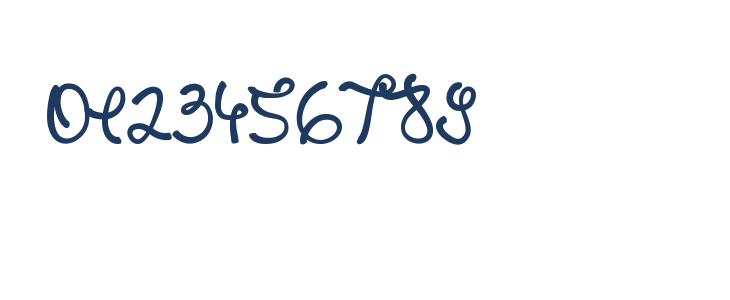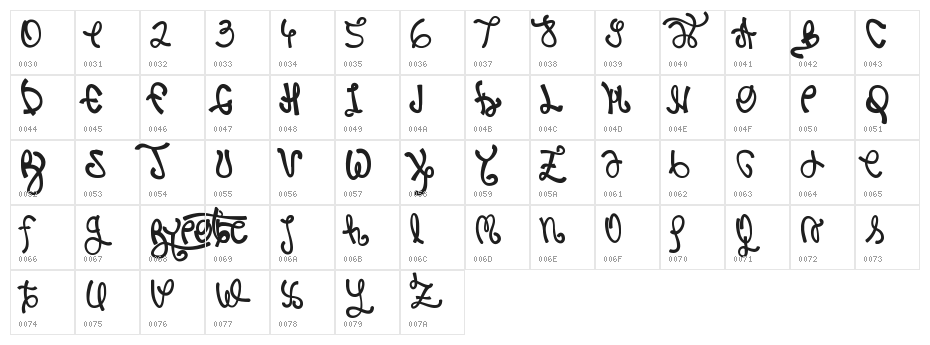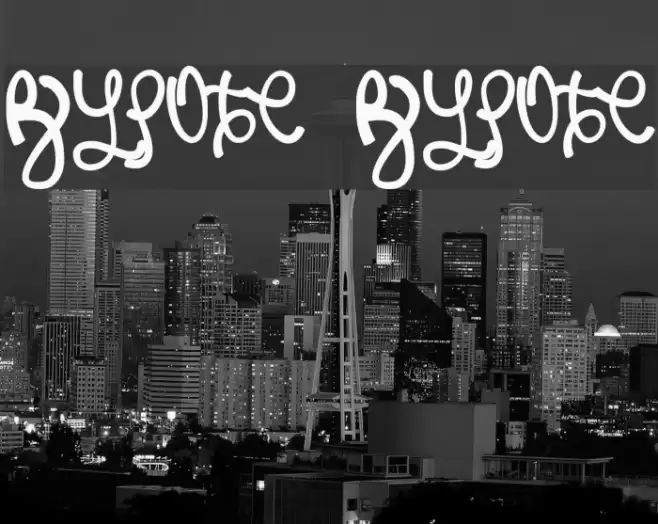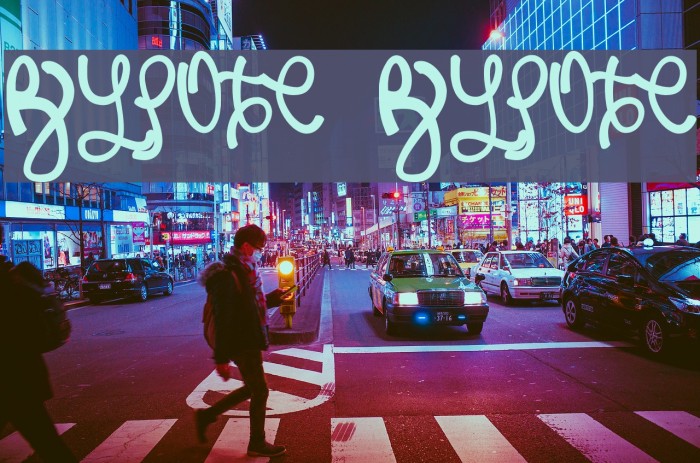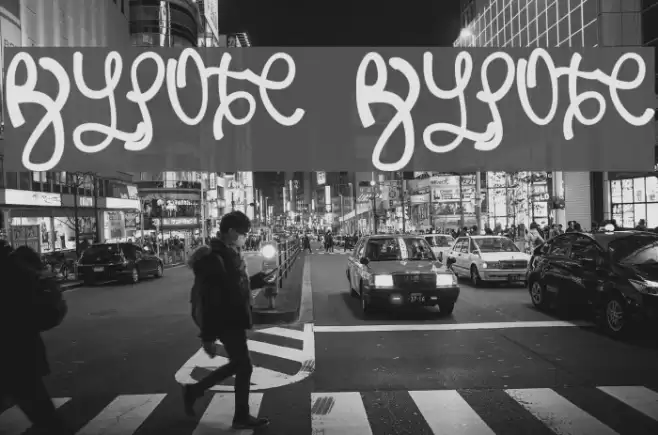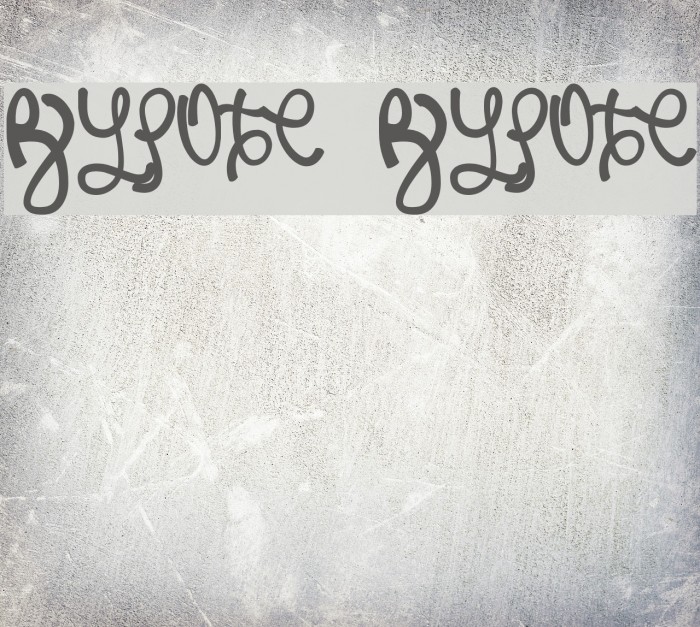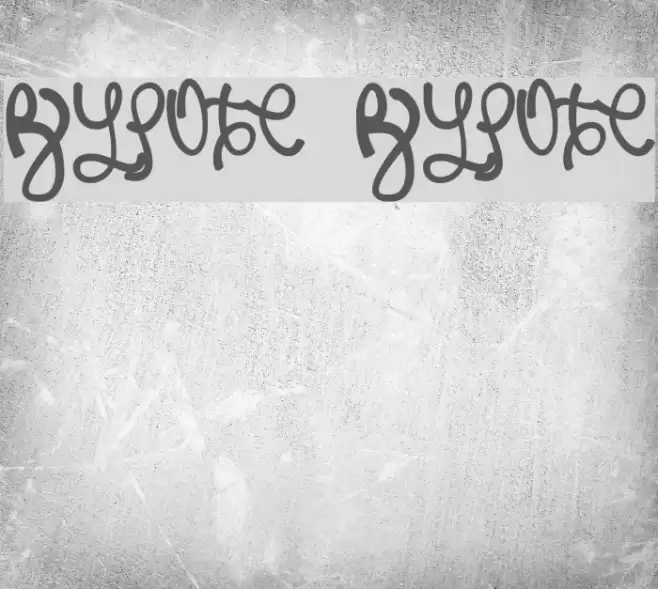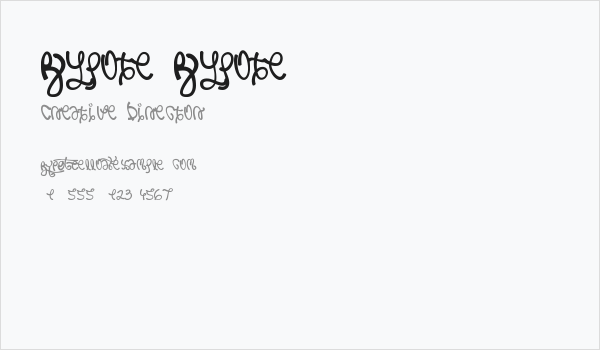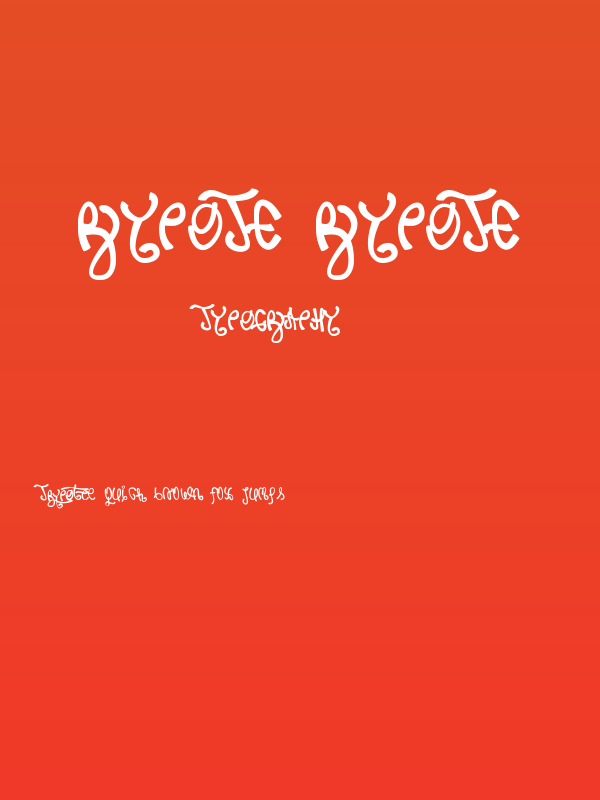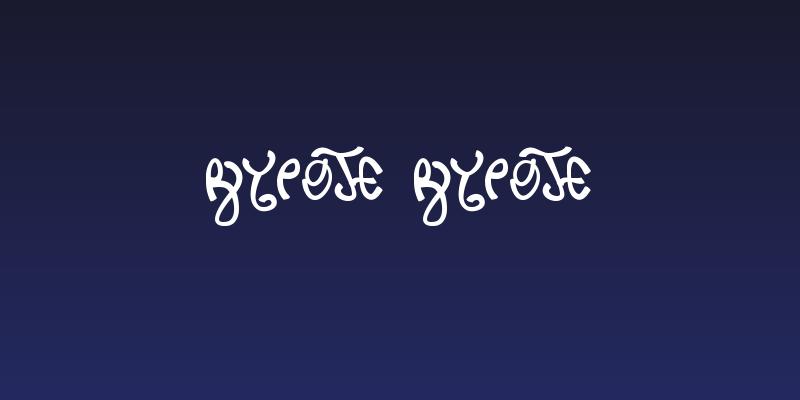
Rypote Rypote Font
Rypote Rypote Description
This font features a highly decorative and artistic style, characterized by its swirling, interconnected strokes and playful loops. The uppercase letters are bold and dynamic, with each character exhibiting unique flourishes that give it a whimsical and almost calligraphic appearance. The lowercase letters maintain this playful aesthetic, with a slightly more subdued approach, yet still retaining the font's signature loops and curls. Numbers and special characters follow suit, offering a consistent visual theme throughout. The overall design is expressive and lively, making it ideal for creative and artistic projects.
| Proposed Projects | Ideal for artistic projects, invitations, greeting cards, and creative branding. |